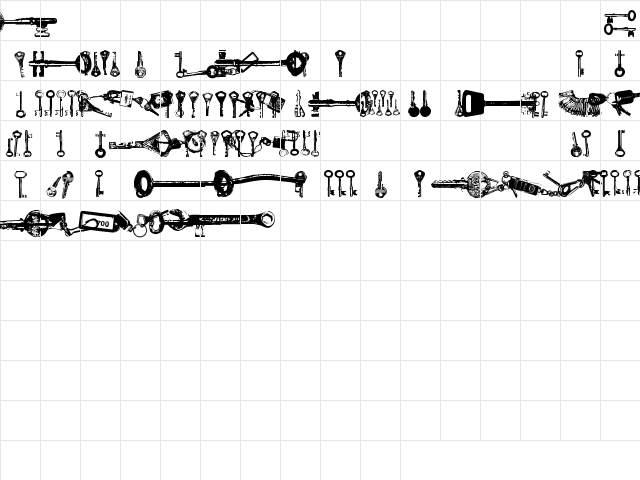
Avain Regular Free Font
Avain Regular
Designer: junkohanhero
Design Context for Avain
Avain is a composed and adaptable typeface that performs quietly and consistently across a wide range of design contexts.